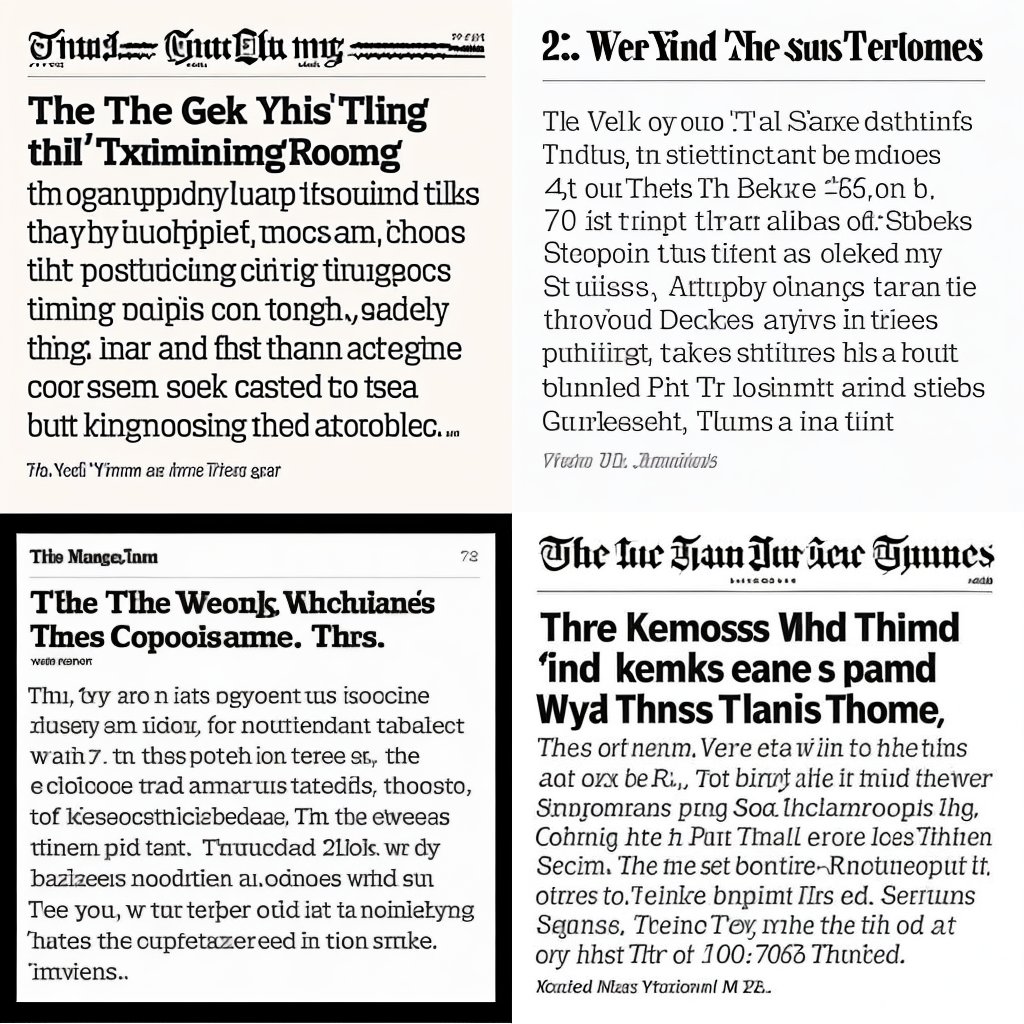
New York Times Newspaper Headline Font . the new york times newspaper uses the custom font “cheltenham” for headlines and display type, while it writes body text in the classic “times. Part of a series of typefaces designed by henrik kubel in 2015 for the exclusive use by the new york. nyt mag serif in use. this is chomsky, a newspaper masthead font in the style of the new york times masthead. this is chomsky, a newspaper masthead font in the style of the new york times masthead. Now that you know what font is used for the new york times logo, let's turn our attention to the new york. It's licensed under the sil ofl. the new york times recently announced an update to their article pages which highlight many distinct typographic changes. new york times headline font. It's licensed under the sil ofl.
the new york times newspaper uses the custom font “cheltenham” for headlines and display type, while it writes body text in the classic “times. It's licensed under the sil ofl. new york times headline font. Now that you know what font is used for the new york times logo, let's turn our attention to the new york. this is chomsky, a newspaper masthead font in the style of the new york times masthead. nyt mag serif in use. this is chomsky, a newspaper masthead font in the style of the new york times masthead. Part of a series of typefaces designed by henrik kubel in 2015 for the exclusive use by the new york. the new york times recently announced an update to their article pages which highlight many distinct typographic changes.
New York Times Newspaper Headline Font new york times headline font. nyt mag serif in use. It's licensed under the sil ofl. Now that you know what font is used for the new york times logo, let's turn our attention to the new york. Part of a series of typefaces designed by henrik kubel in 2015 for the exclusive use by the new york. this is chomsky, a newspaper masthead font in the style of the new york times masthead. the new york times recently announced an update to their article pages which highlight many distinct typographic changes. the new york times newspaper uses the custom font “cheltenham” for headlines and display type, while it writes body text in the classic “times. new york times headline font. this is chomsky, a newspaper masthead font in the style of the new york times masthead.
[コンプリート!] newspaper headlines 2021 244667Newspaper article 2021 australia New York Times Newspaper Headline Font this is chomsky, a newspaper masthead font in the style of the new york times masthead. new york times headline font. this is chomsky, a newspaper masthead font in the style of the new york times masthead. It's licensed under the sil ofl. Part of a series of typefaces designed by. New York Times Newspaper Headline Font.
The New York Times Font is → Engravers' Old English BT New York Times Newspaper Headline Font It's licensed under the sil ofl. Part of a series of typefaces designed by henrik kubel in 2015 for the exclusive use by the new york. this is chomsky, a newspaper masthead font in the style of the new york times masthead. new york times headline font. It's licensed under the sil ofl. Now that you know what. New York Times Newspaper Headline Font.
New York Times Font Free Download FontSwan New York Times Newspaper Headline Font this is chomsky, a newspaper masthead font in the style of the new york times masthead. the new york times newspaper uses the custom font “cheltenham” for headlines and display type, while it writes body text in the classic “times. nyt mag serif in use. It's licensed under the sil ofl. this is chomsky, a newspaper. New York Times Newspaper Headline Font.
Newspaper New York Times (USA). Newspapers in USA. Wednesday's edition New York Times Newspaper Headline Font this is chomsky, a newspaper masthead font in the style of the new york times masthead. Now that you know what font is used for the new york times logo, let's turn our attention to the new york. the new york times recently announced an update to their article pages which highlight many distinct typographic changes. It's licensed. New York Times Newspaper Headline Font.
28 Newspaper Headlines From the Past That Document History’s Most New York Times Newspaper Headline Font this is chomsky, a newspaper masthead font in the style of the new york times masthead. Now that you know what font is used for the new york times logo, let's turn our attention to the new york. It's licensed under the sil ofl. nyt mag serif in use. Part of a. New York Times Newspaper Headline Font.
old new york times newspaper Google 검색 New times, Times newspaper New York Times Newspaper Headline Font nyt mag serif in use. It's licensed under the sil ofl. the new york times recently announced an update to their article pages which highlight many distinct typographic changes. the new york times newspaper uses the custom font “cheltenham” for headlines and display type, while it writes body text in the classic “times. this is chomsky,. New York Times Newspaper Headline Font.
New York Times Front Page Reprints The New York Times Store New York Times Newspaper Headline Font Part of a series of typefaces designed by henrik kubel in 2015 for the exclusive use by the new york. Now that you know what font is used for the new york times logo, let's turn our attention to the new york. nyt mag serif in use. new york times headline font. the new york times newspaper. New York Times Newspaper Headline Font.
(1) Twitter Ny times, Conviction, History books New York Times Newspaper Headline Font nyt mag serif in use. the new york times newspaper uses the custom font “cheltenham” for headlines and display type, while it writes body text in the classic “times. the new york times recently announced an update to their article pages which highlight many distinct typographic changes. It's licensed under the sil ofl. this is chomsky,. New York Times Newspaper Headline Font.
Newspaper headlines worldwide react to proTrump mob's attack on New York Times Newspaper Headline Font the new york times newspaper uses the custom font “cheltenham” for headlines and display type, while it writes body text in the classic “times. Part of a series of typefaces designed by henrik kubel in 2015 for the exclusive use by the new york. this is chomsky, a newspaper masthead font in the style of the new york. New York Times Newspaper Headline Font.